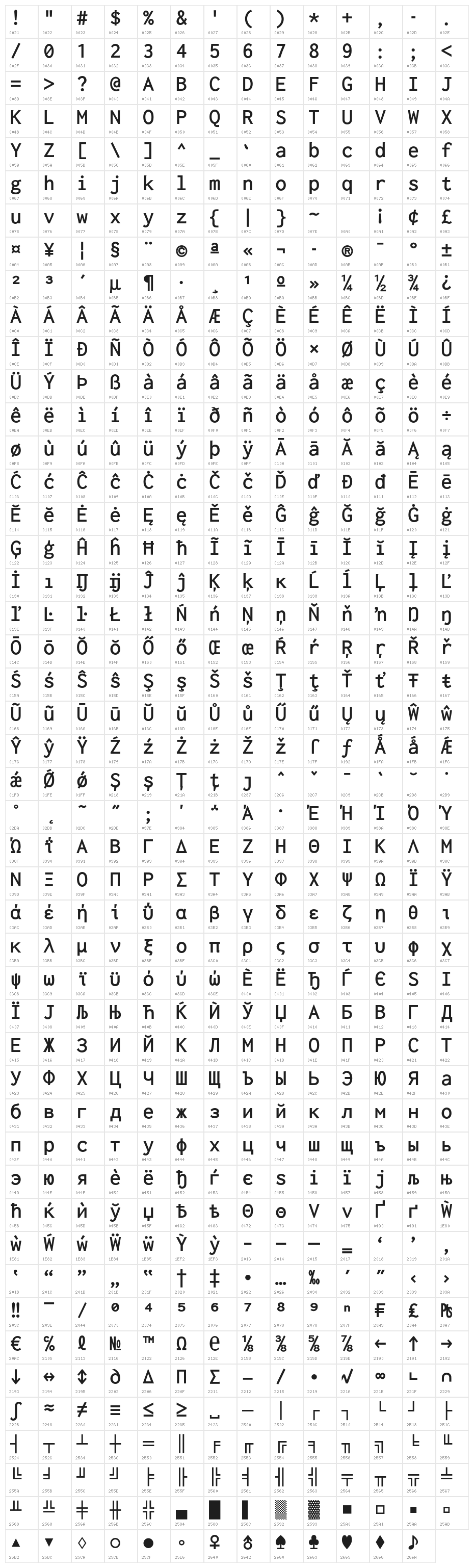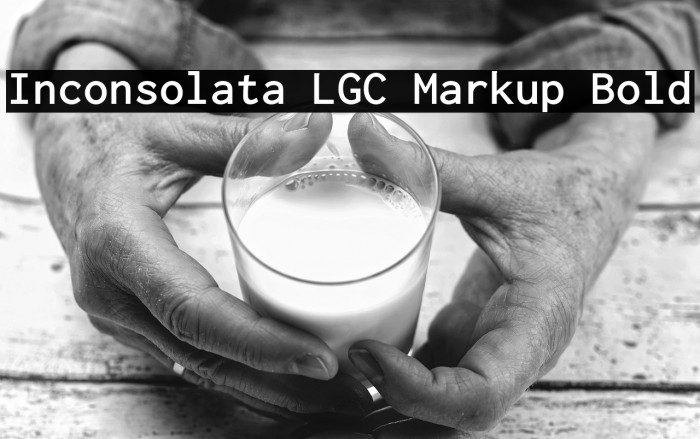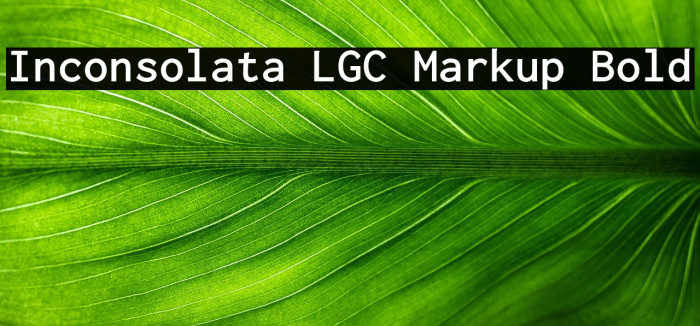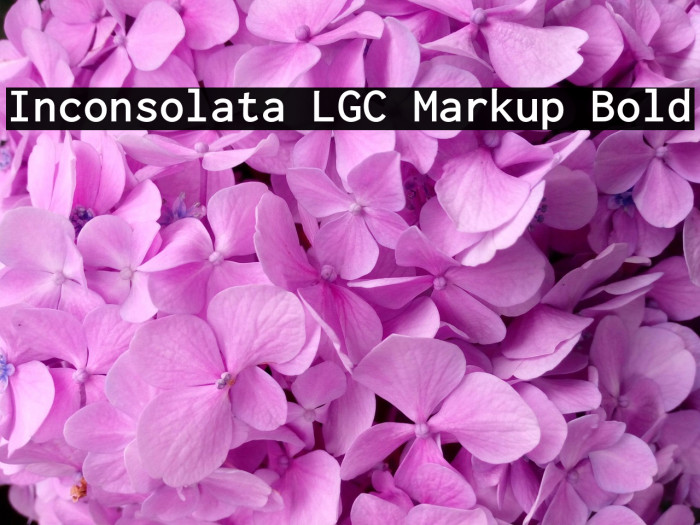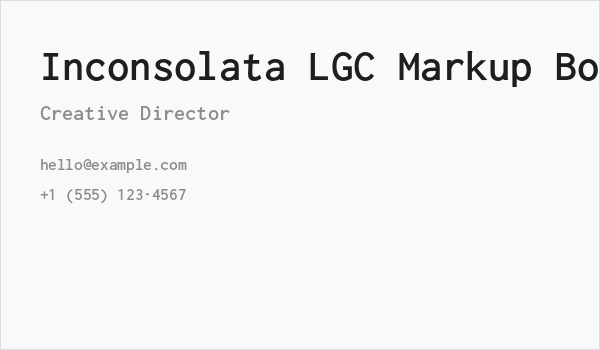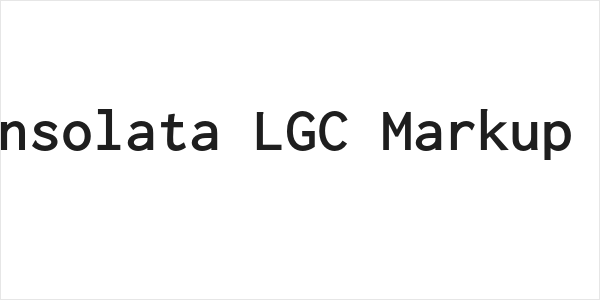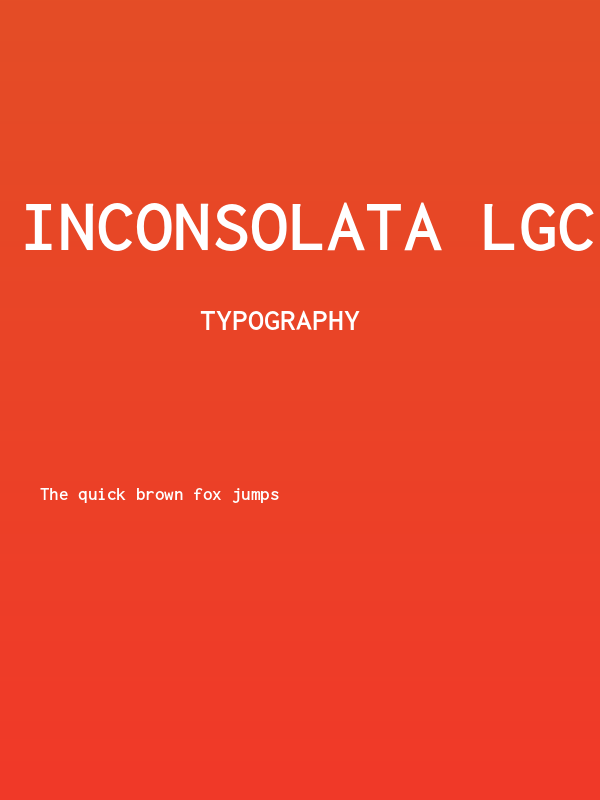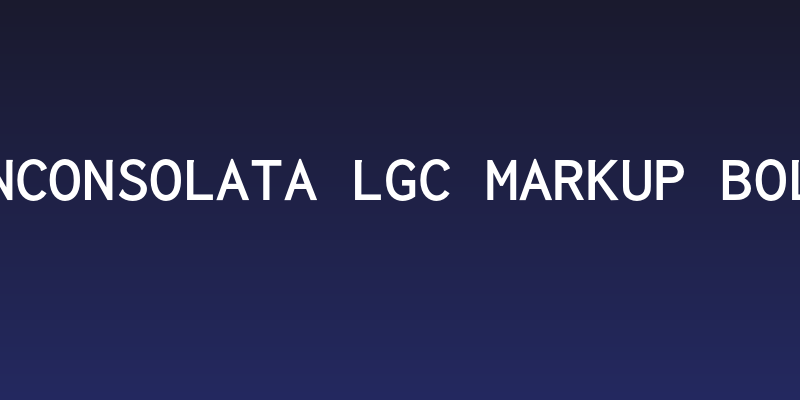
Inconsolata LGC Markup Bold Font
Inconsolata LGC Markup Bold Description
This font is a monospaced typeface characterized by its clean and modern appearance. Each character is designed with uniform width, making it ideal for coding and tabular data. The strokes are bold and consistent, providing excellent readability. The uppercase letters are well-proportioned, while the lowercase letters maintain a balanced and harmonious look. The numerals are clear and distinct, ensuring they stand out in any context. Special characters are crafted with precision, enhancing the font's versatility. Overall, this font combines functionality with a sleek design, making it suitable for various digital and print applications.
| Use Case | Coding, Technical documentation, Data tables |
| Proposed Projects | Ideal for coding environments, technical documentation, and data tables. |